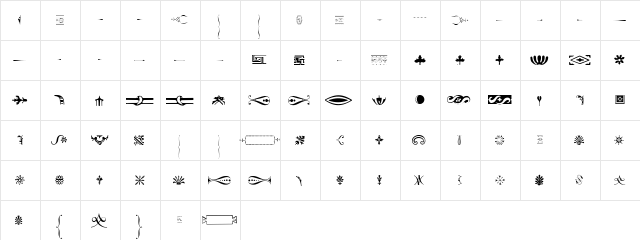
Bodoni Classic Ornaments Regular
Design Context for Bodoni Classic Ornaments Typeface
Bodoni Classic Ornaments has the warm character of retro typography — evoking diners, record sleeves, and the golden age of print advertising.
Ideal for diner signage, record shop branding, 70s/80s-themed projects, and heritage product labels.
Font Pairing: Combine Bodoni Classic Ornaments with a simple slab or neutral sans — period-accurate companions reinforce the vintage feel without competing for attention.
Pro Tip: Lean into Bodoni Classic Ornaments's period character by pairing it with aged paper textures, muted colour palettes, and vintage illustration styles.